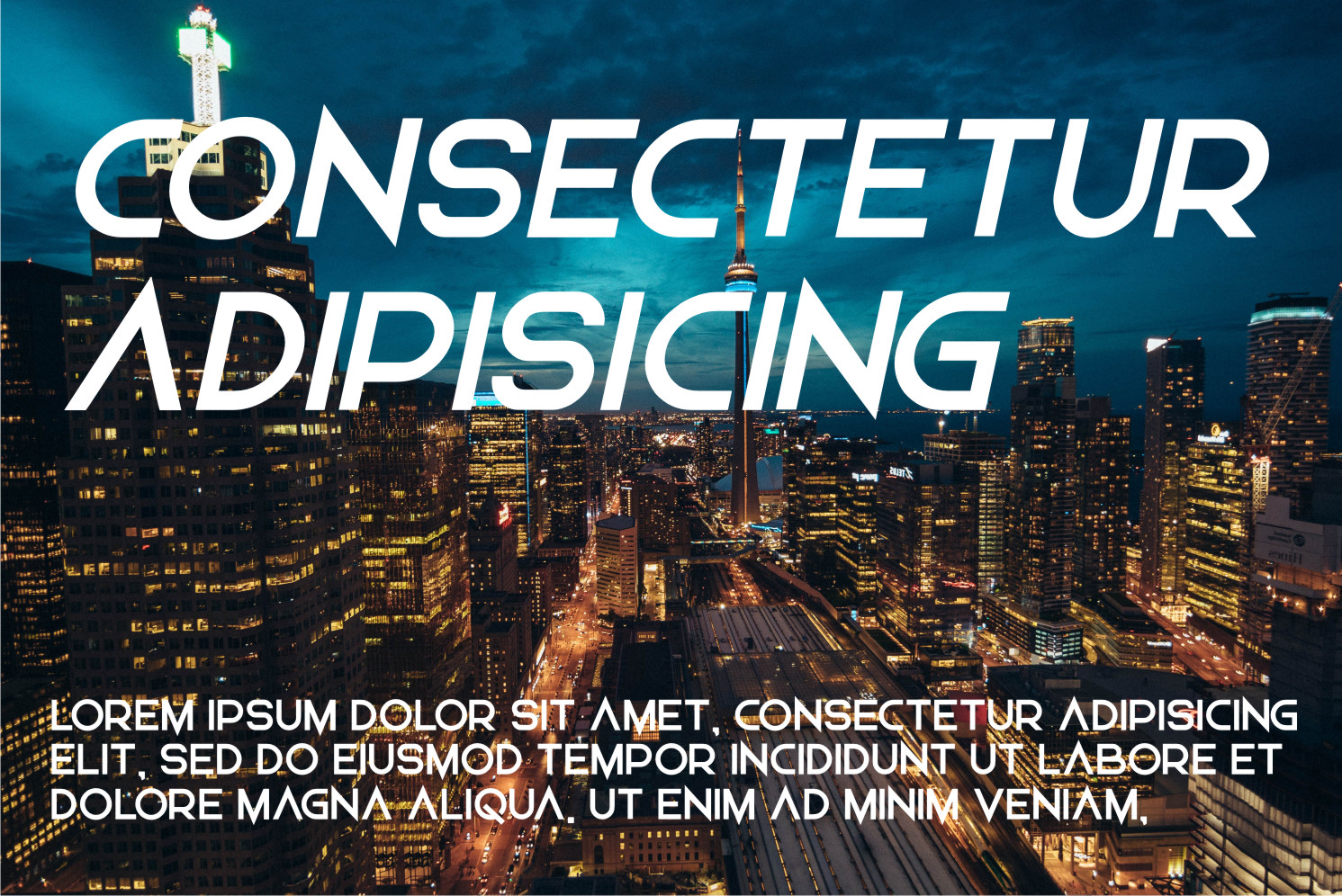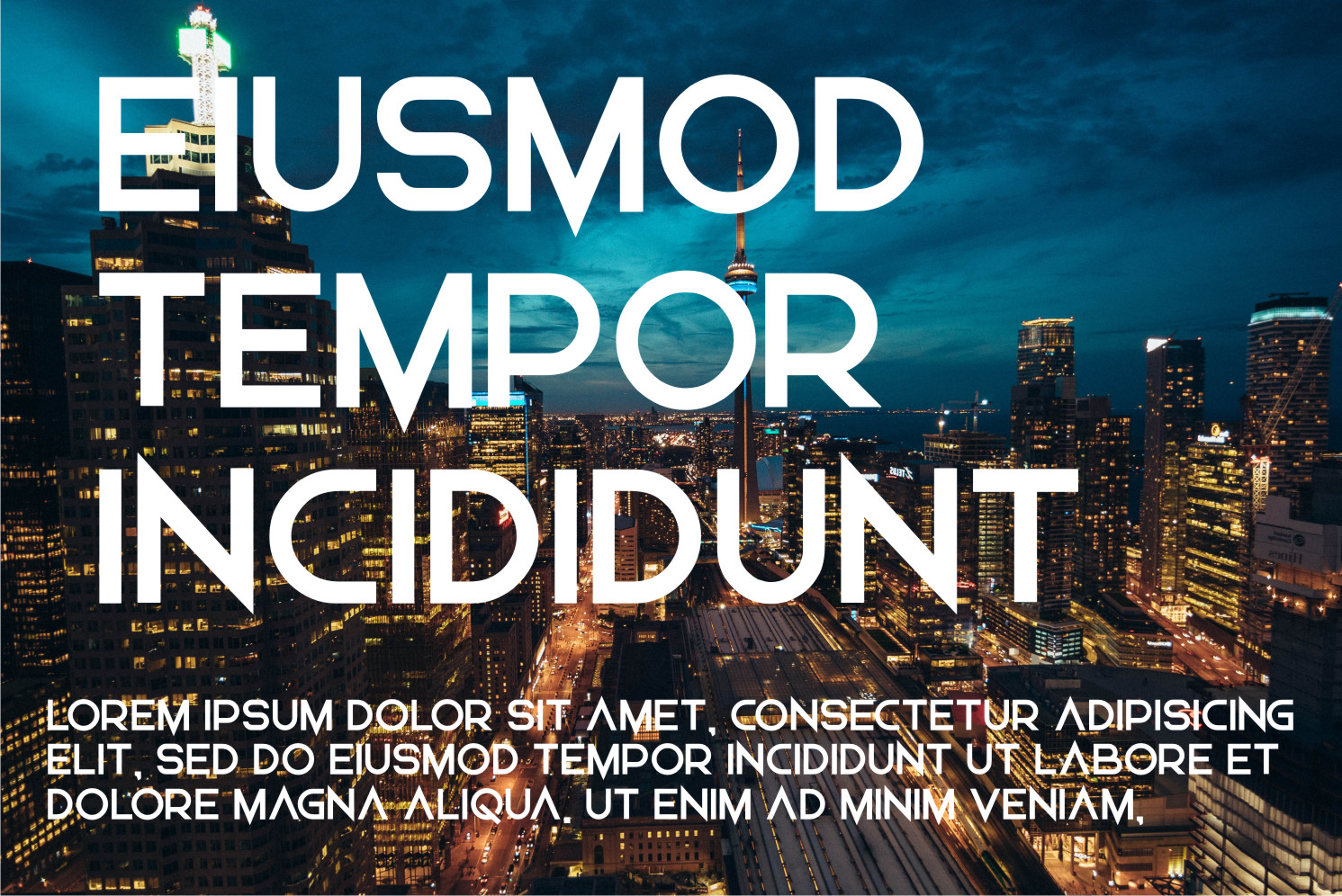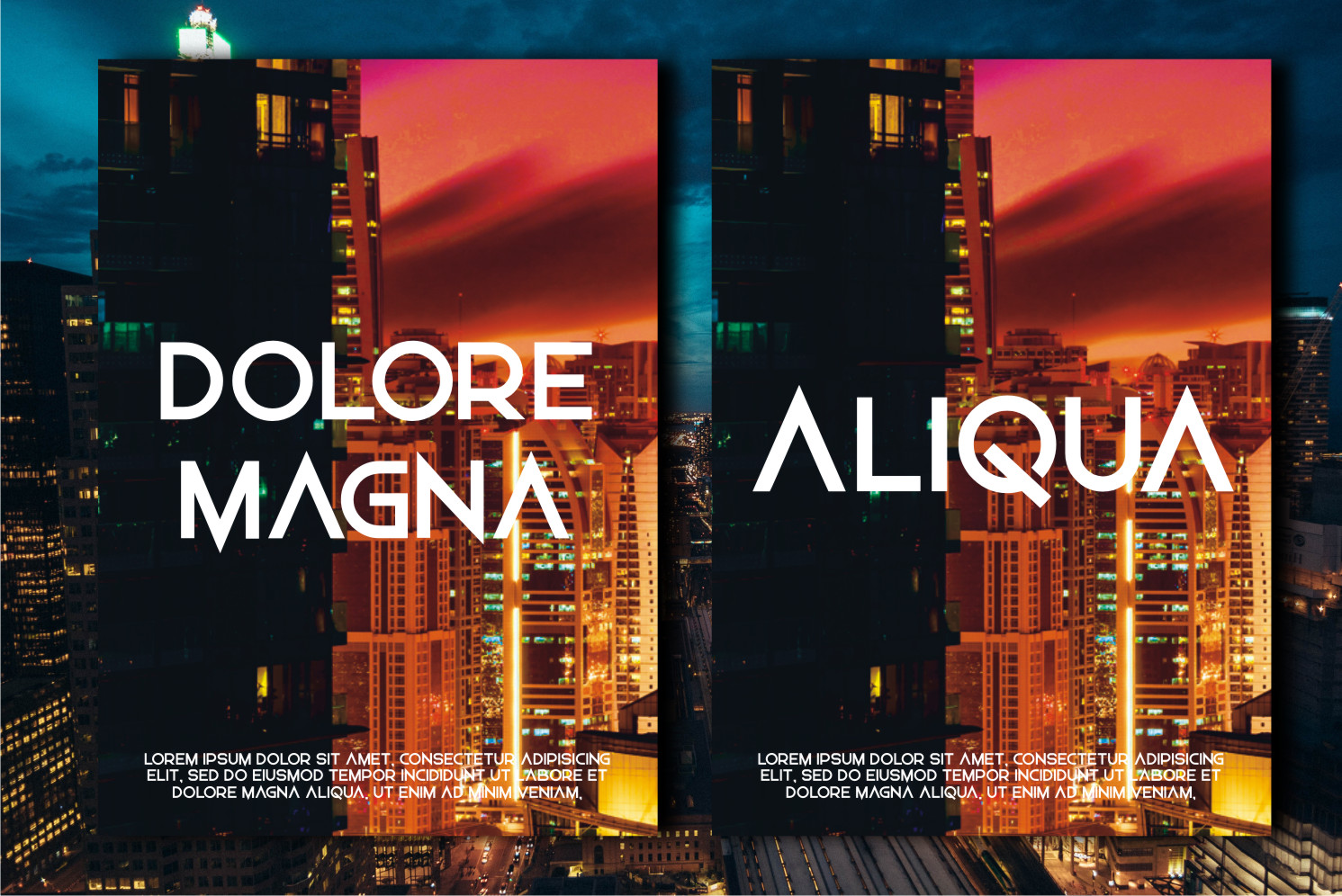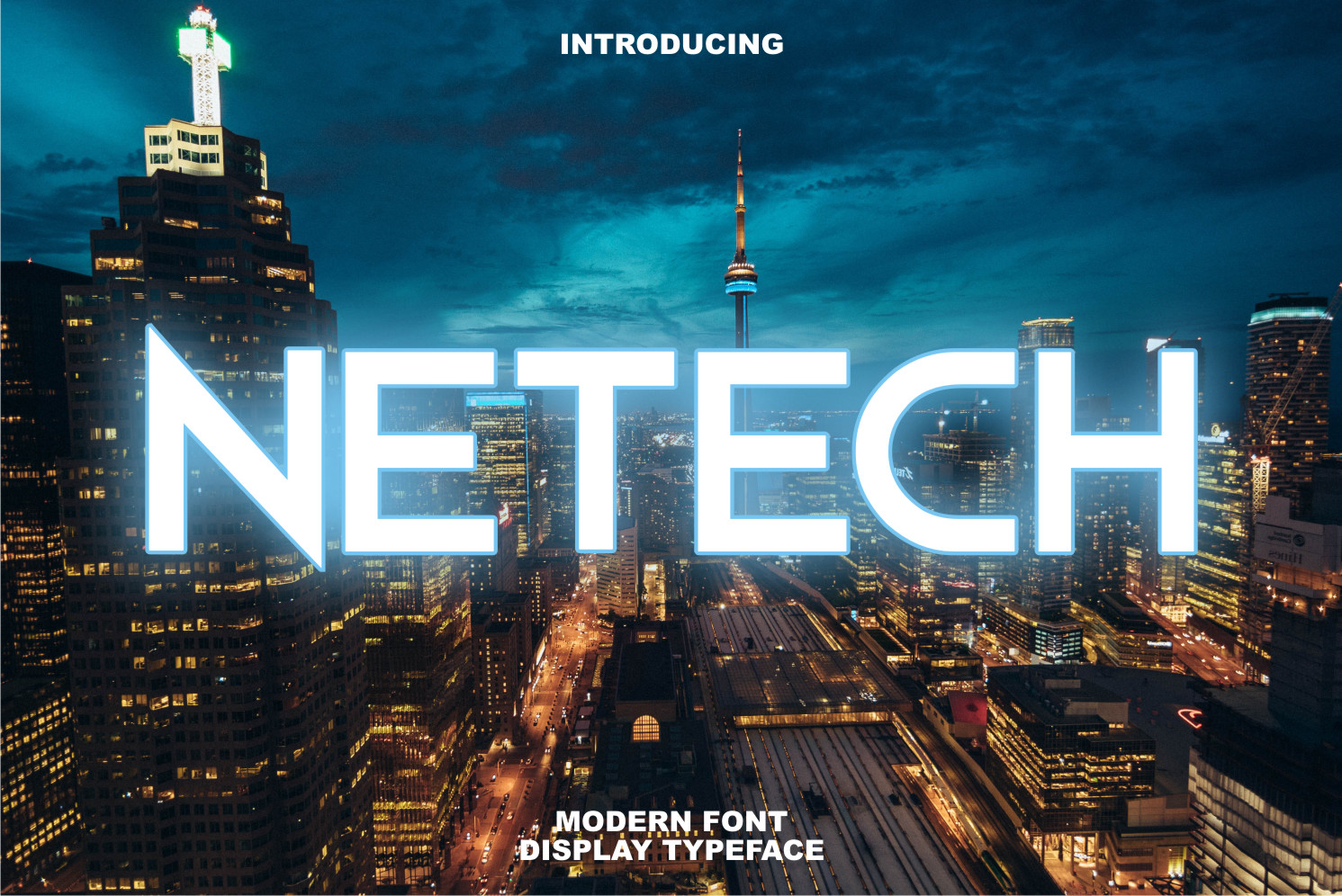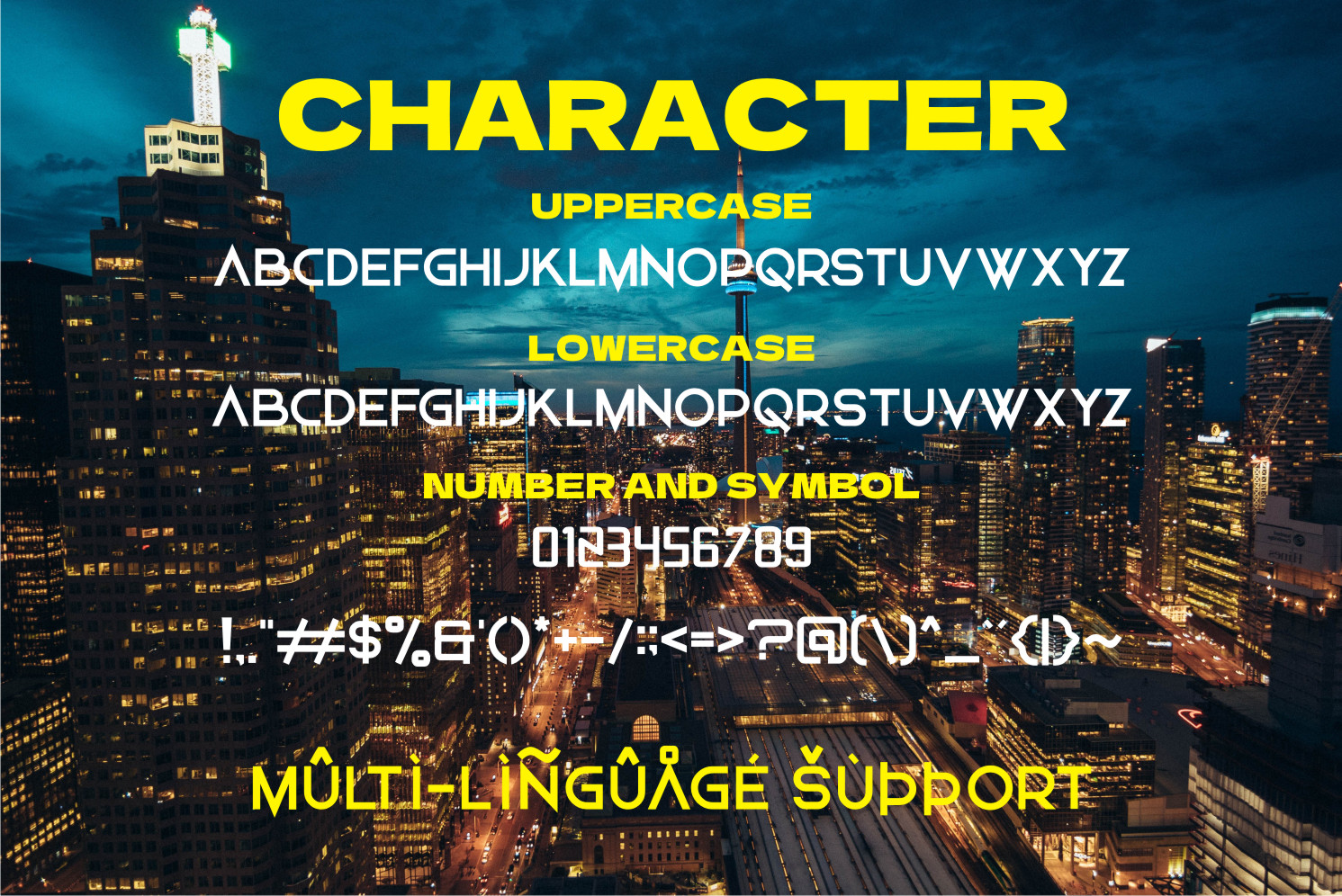
Netech Display Font
It’s a cool and robotic styled display font. This font is ideal for writing web designs, business cards, or pretty much anything else that requires a modern, unique touch.